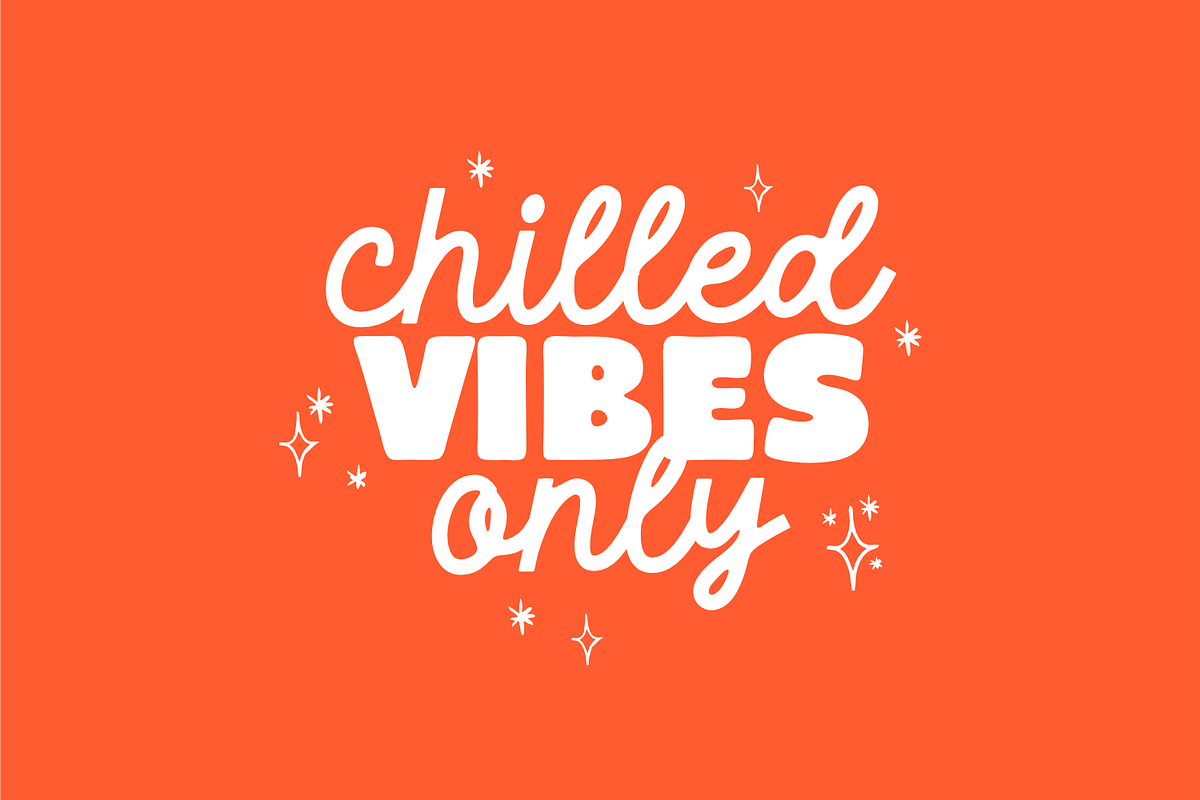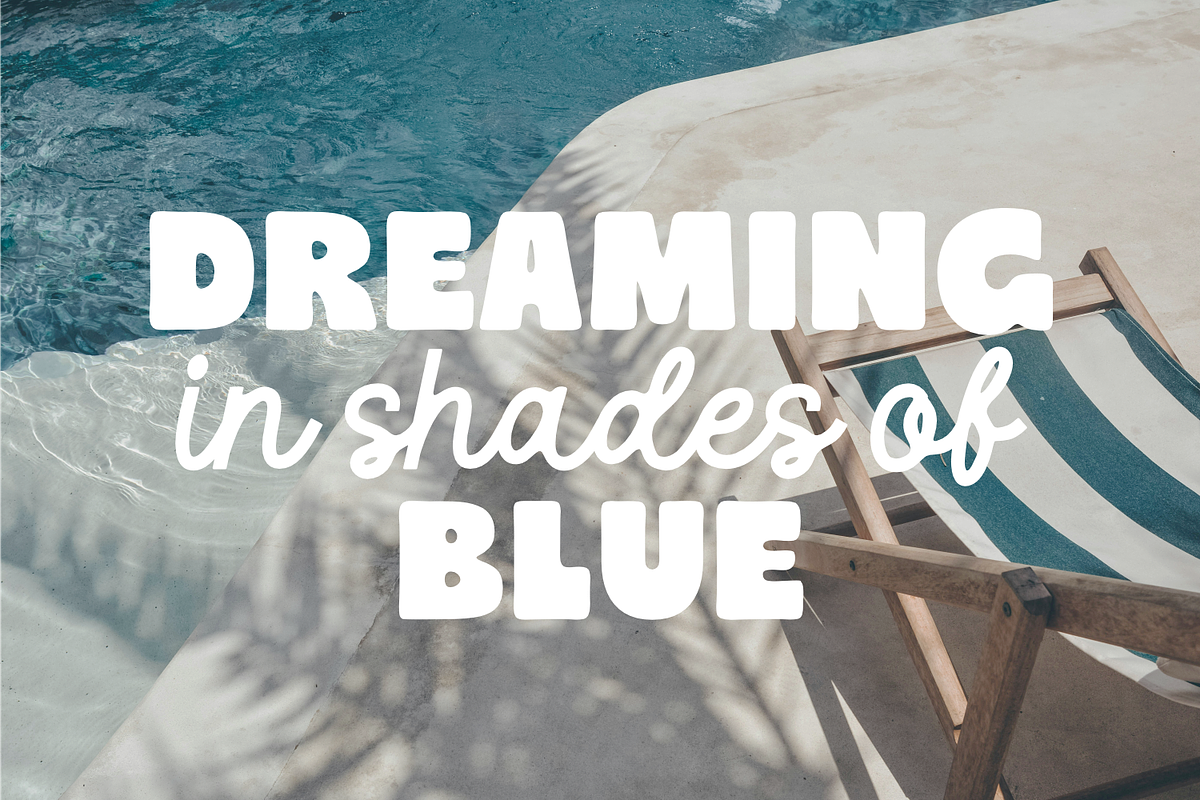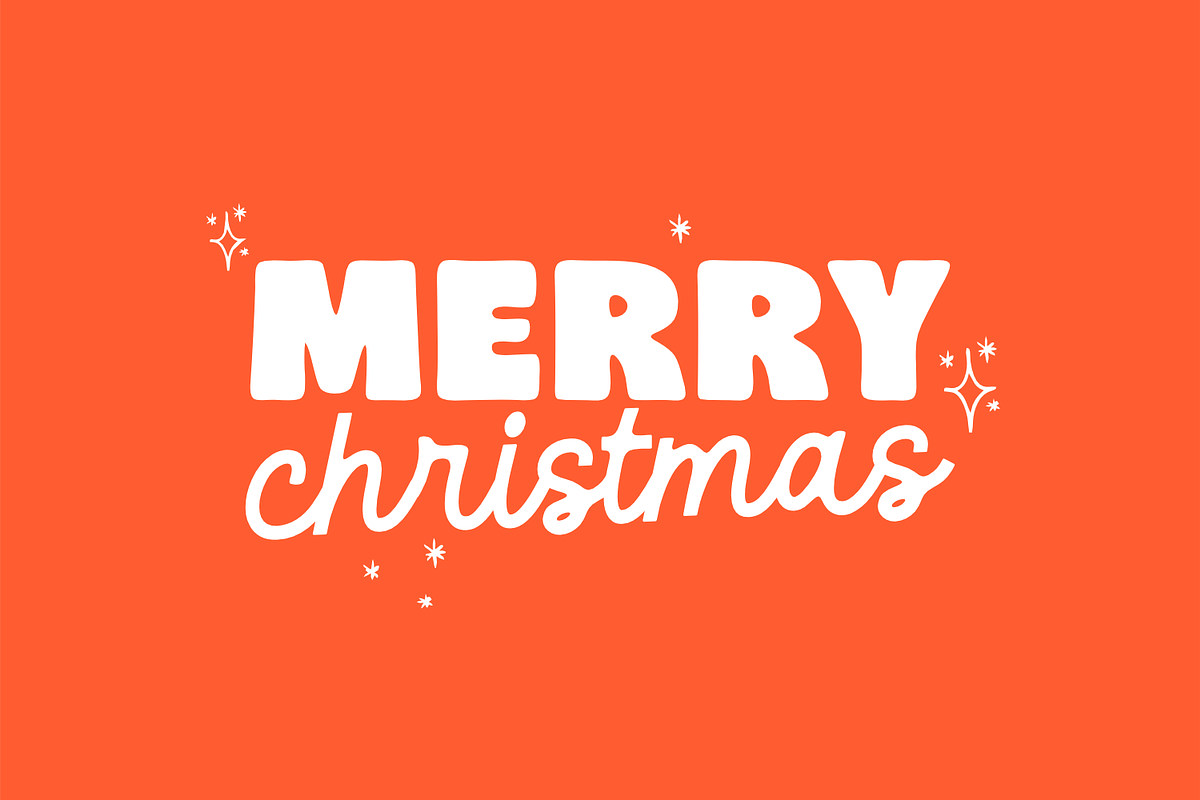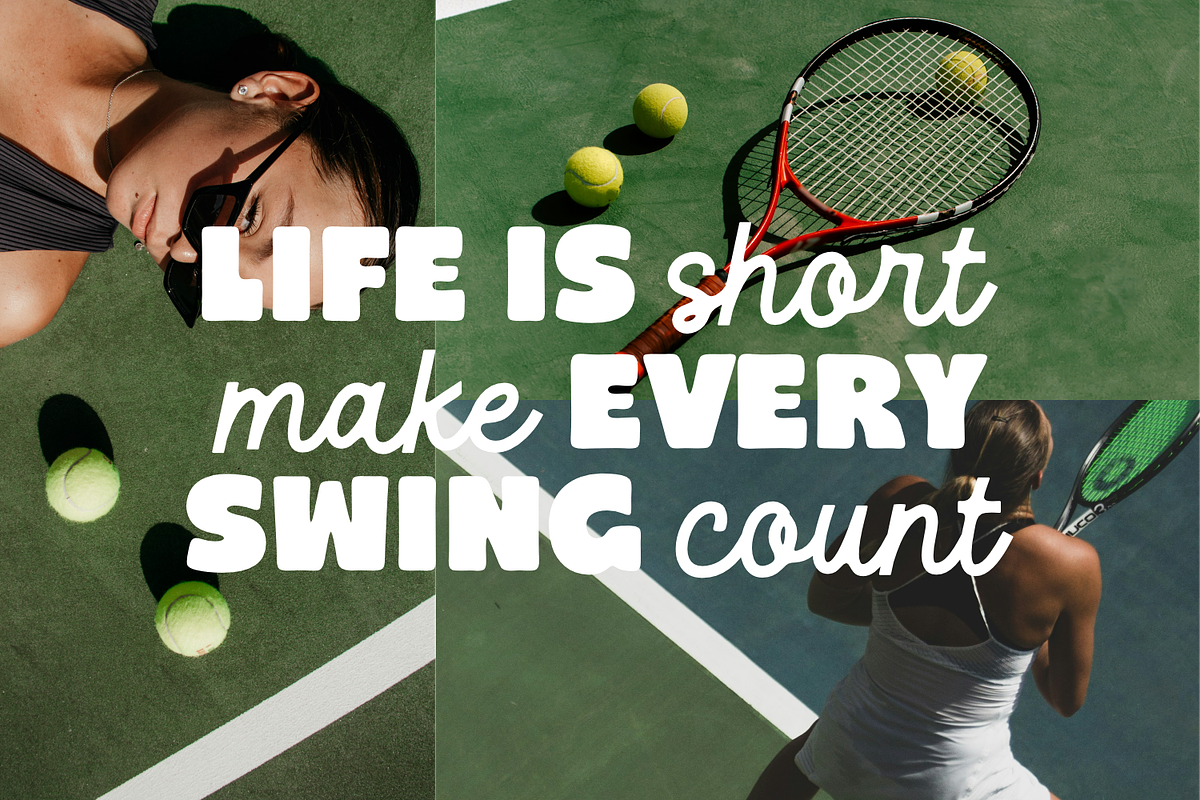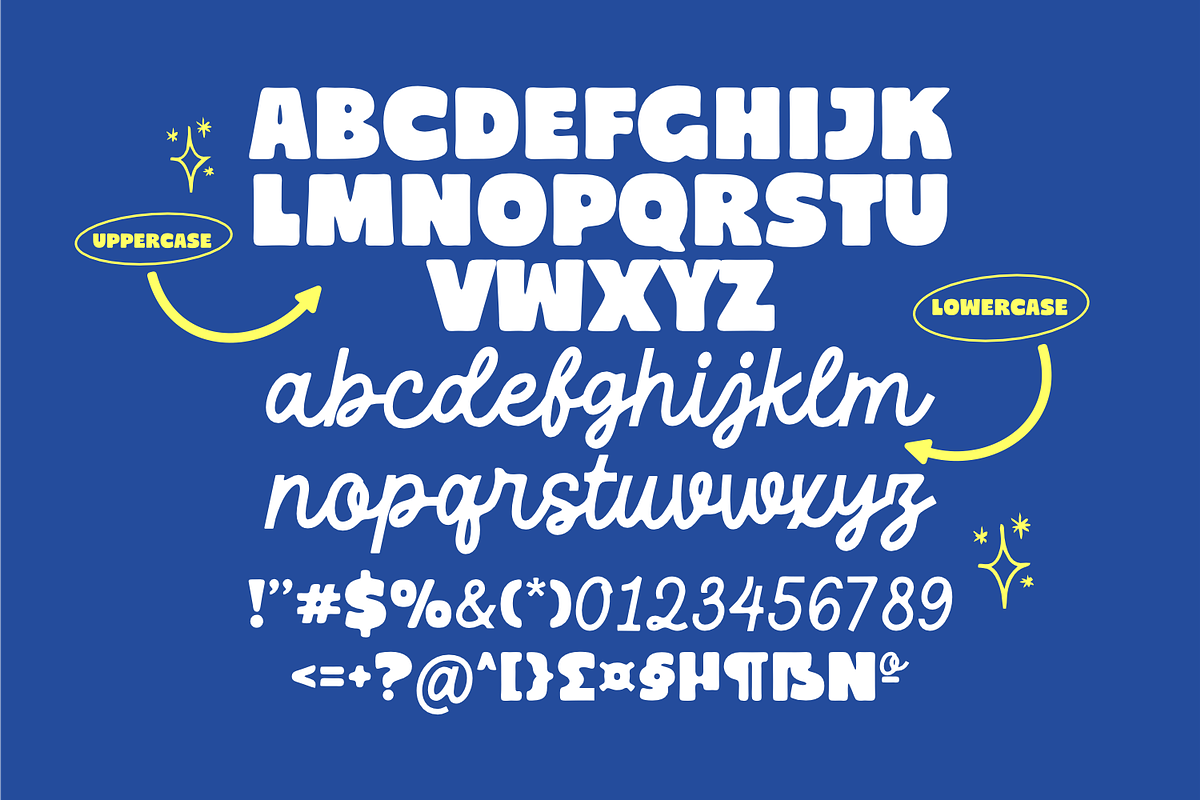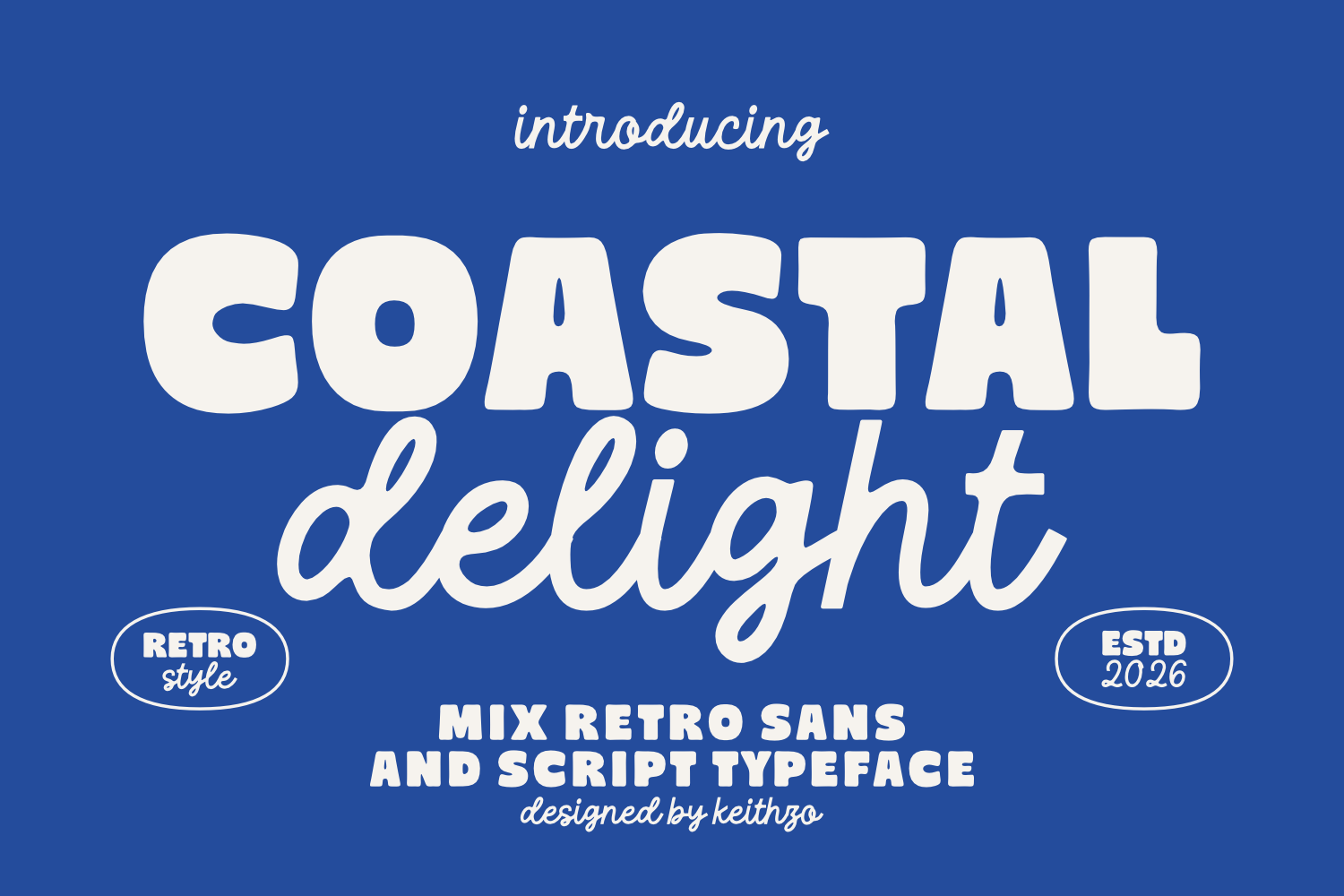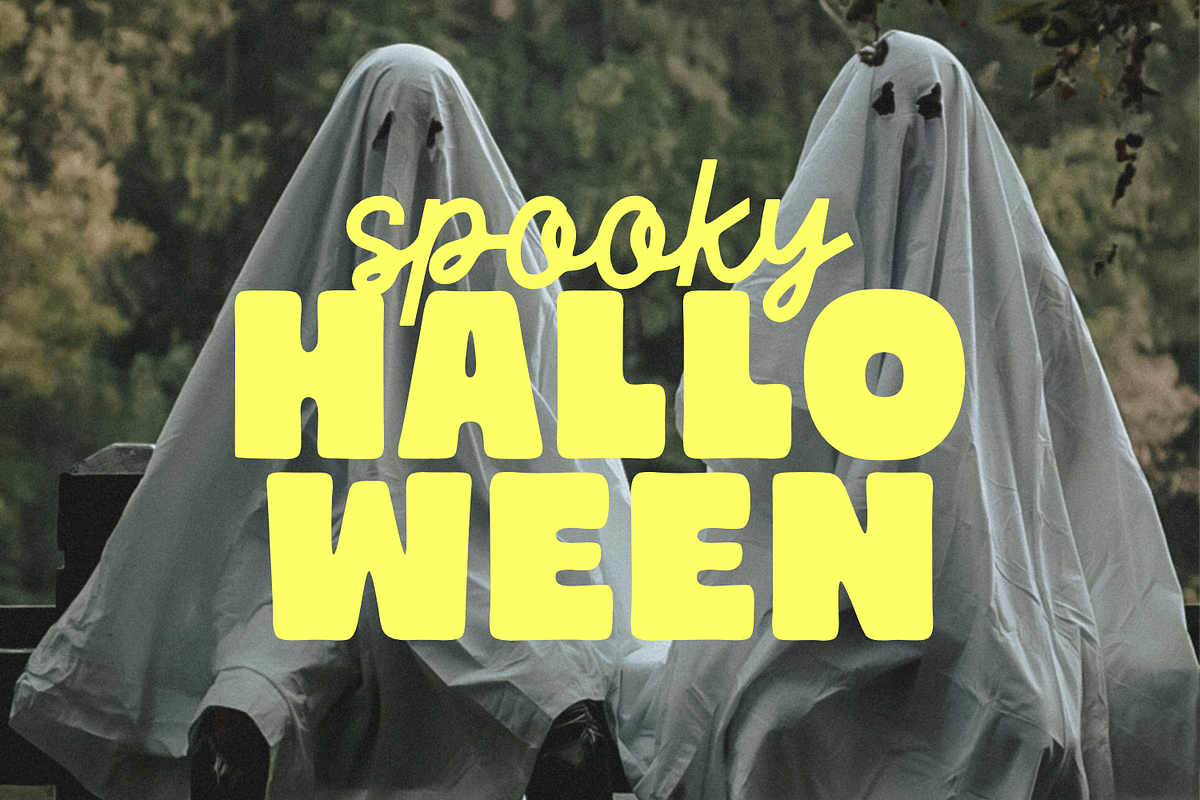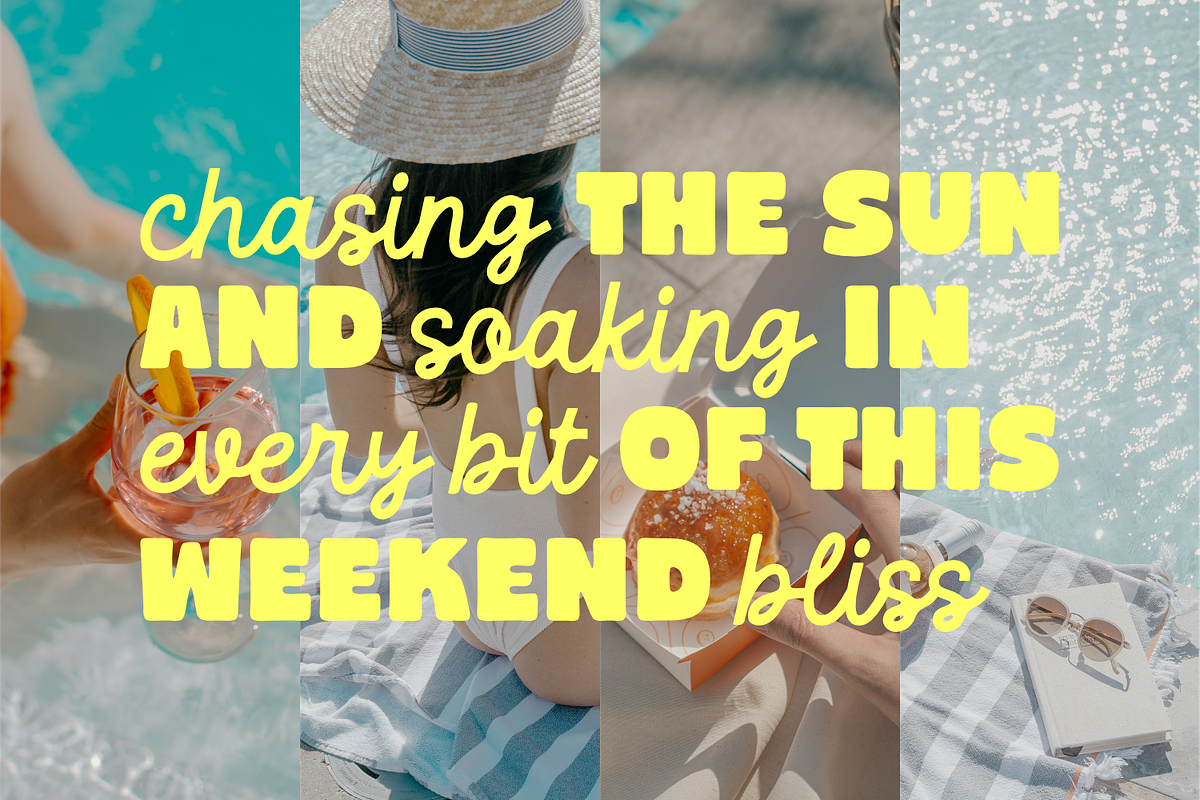
Coastal Delight - Mix Retro Font
Bring a wave of nostalgic energy to your next project with Coastal Delight, a vibrant typeface duo that perfectly balances bold, chunky letterforms with a fluid, free-spirited script.
Designed for creators who crave a retro aesthetic with a modern, approachable twist, Coastal Delight is the ultimate toolkit for making a statement. The combination of a heavy, eye-catching sans-serif and a graceful, hand-lettered script creates a dynamic contrast, allowing you to build visual hierarchy effortlessly while maintaining a cohesive, sun-drenched vibe.
Coastal Delight captures the essence of carefree weekends and golden hours. It’s not just a font; it’s a mood. Use it to add character to your headlines, depth to your branding, and a touch of human warmth to your digital designs.
Elevate your typography library today with Coastal Delight—where retro soul meets modern versatility.